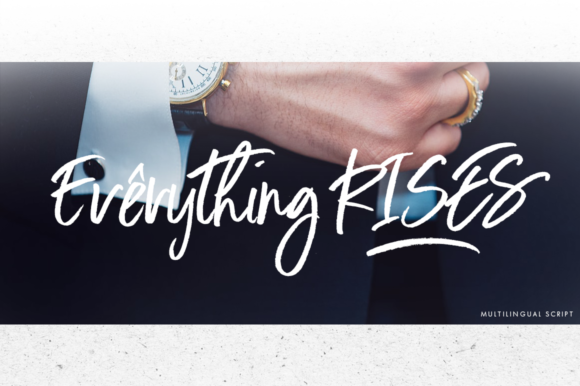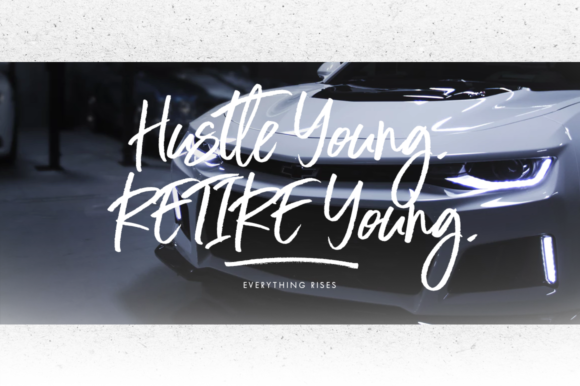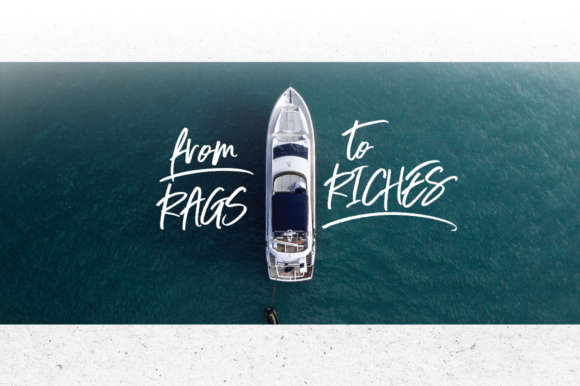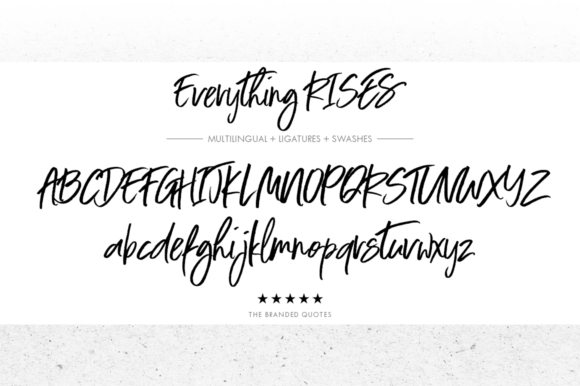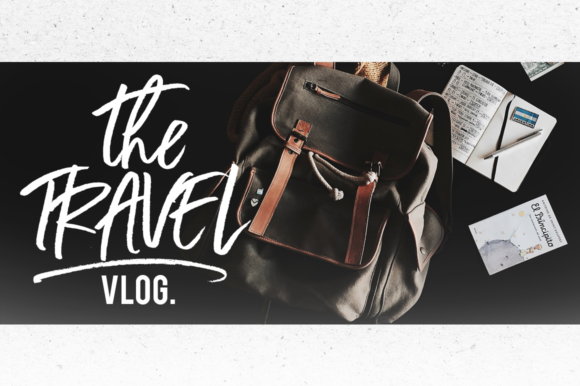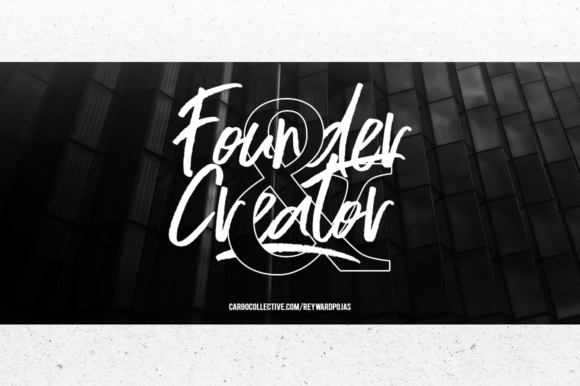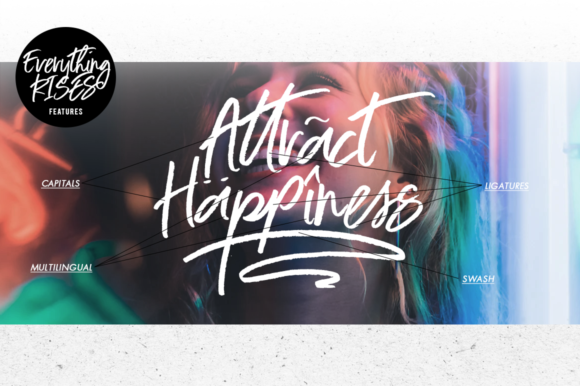
Everything Rises Font
About Everything Rises Font
Everything Rises is a great multilingual typeface full of energy. Unleash your creativity with this authentic script.